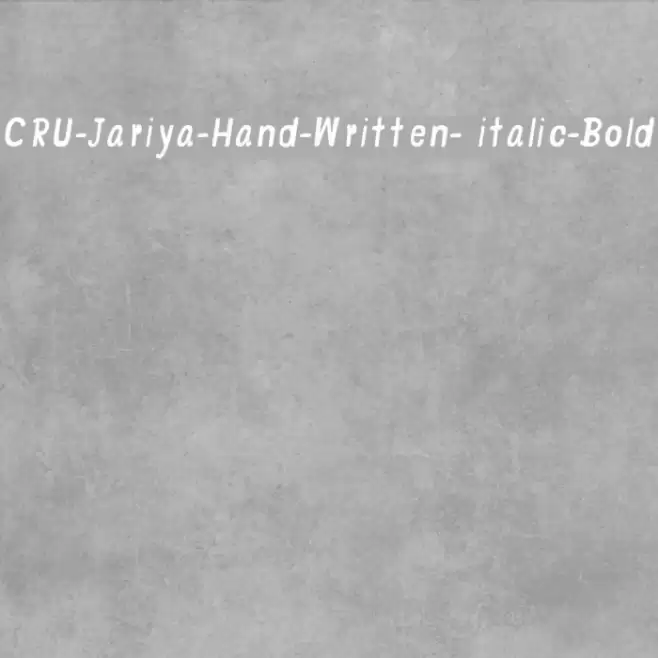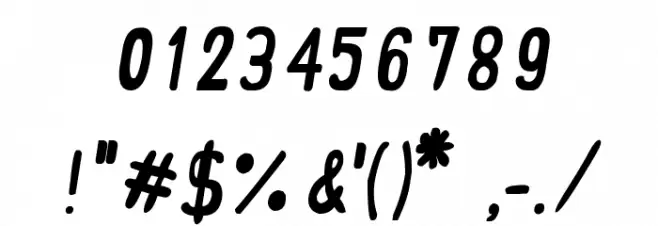
CRU-Jariya-Hand-Written- italic-Bold Font
CRU-Jariya-Hand-Written- italic-Bold Description
This font features a hand-written style with a bold and italicized appearance, giving it a casual yet assertive look. The characters are slightly slanted, enhancing the informal and dynamic feel. The strokes are consistent in weight, providing a uniform appearance across all characters. The uppercase letters are distinct and prominent, while the lowercase letters maintain a smooth flow, characteristic of hand-written scripts. The numbers and special characters are designed to match the overall style, ensuring cohesion throughout. This font is ideal for projects that require a personal touch with a bold statement.
A bold, italic hand-written font with a casual and dynamic style from Uncategorized fonts.
- Proposed Projects: Ideal for greeting cards, personal branding, creative posters, and social media graphics.
- Overall Style: Casual, Dynamic
- Use Case: Headlines, Logos, Creative projects